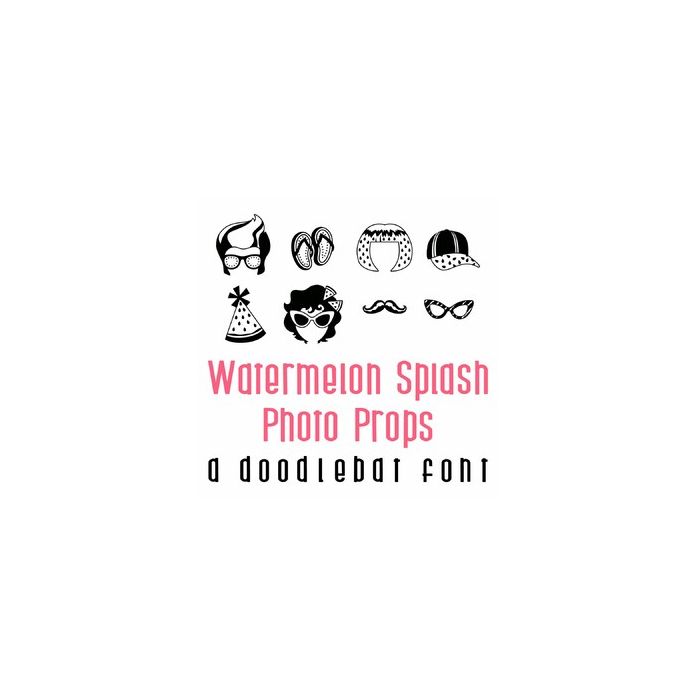
This fun doodlebat font features 26 fun photo prop images with a watermelon theme. Perfect for cards, gifts, decor, crafts, scrap book pages, planner stickers and more!